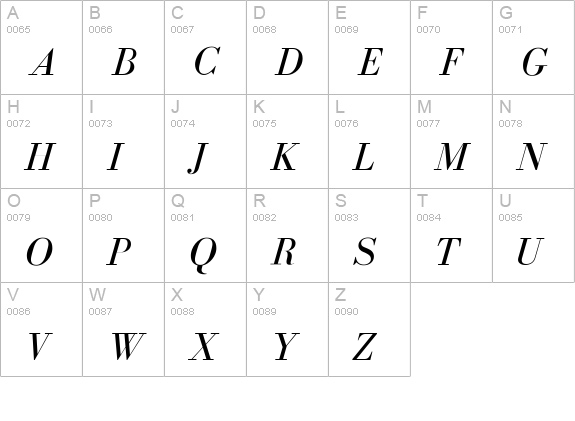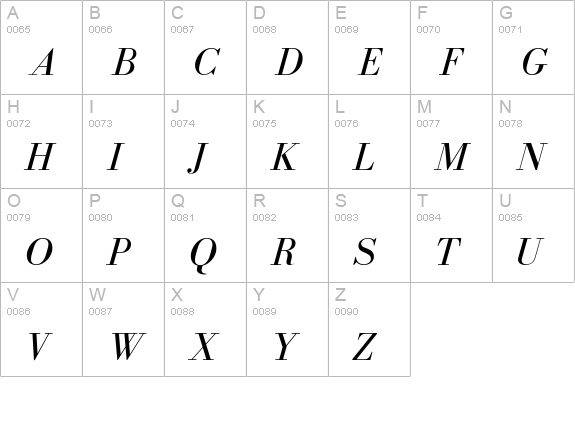
BodoniFLF-Italic Font Details
BodoniFLF-Italic is a distinctive, italic variant in the BodoniFLF typeface family \xE2\x80\x94 well suited to design and typography projects.
BodoniFLF-Italic font is a stunningly elegant typeface that exudes sophistication and class. Its sleek and slanted design adds a touch of artistic flair to any project, making it perfect for conveying a sense of refinement and luxury. With its thin, delicate strokes and graceful curves, BodoniFLF-Italic font captures attention and commands respect. It is a versatile font that can be used in various creative endeavors, including branding, advertising, editorial design, and much more. What makes BodoniFLF-Italic font even more impressive is that it is available for free! This means that designers, artists, and enthusiasts can easily access and utilize this beautiful typeface without any cost. To download the BodoniFLF-Italic font, simply head over to FontsMarket.com, a reputable source for high-quality fonts. There, you will find the font ready to be downloaded and incorporated into your next design project. Whether you are working on a professional project or simply expressing your creativity, BodoniFLF-Italic font is a fantastic choice. Its timeless elegance and freely available nature make it a valuable asset in any designer's toolkit. So, don't miss out on this opportunity to enhance your designs with the beauty of BodoniFLF-Italic font – download it now at FontsMarket.com and let your creativity soar.